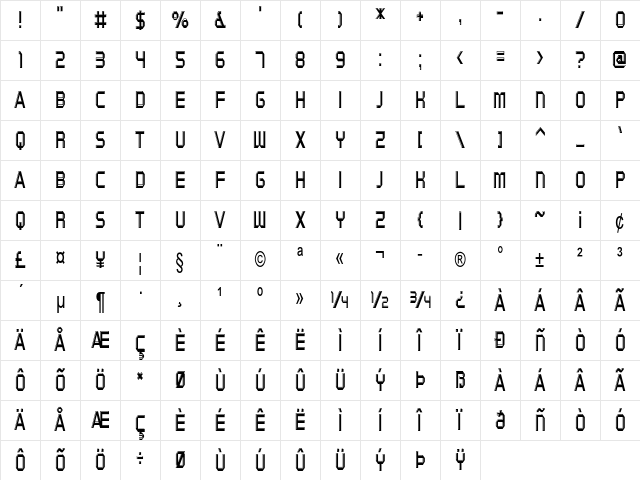
Timewarp Condensed Regular Free Font
Timewarp Condensed Regular
Style: Condensed Regular
Timewarp Family
Timewarp Condensed Regular
Complete Timewarp Condensed Regular glyph index. Displaying only characters natively supported by Timewarp Condensed Regular font.
Design Context for Timewarp
Timewarp is a composed and adaptable typeface that performs quietly and consistently across a wide range of design contexts. Its narrow stance lets it pack a punch even in space-constrained designs.